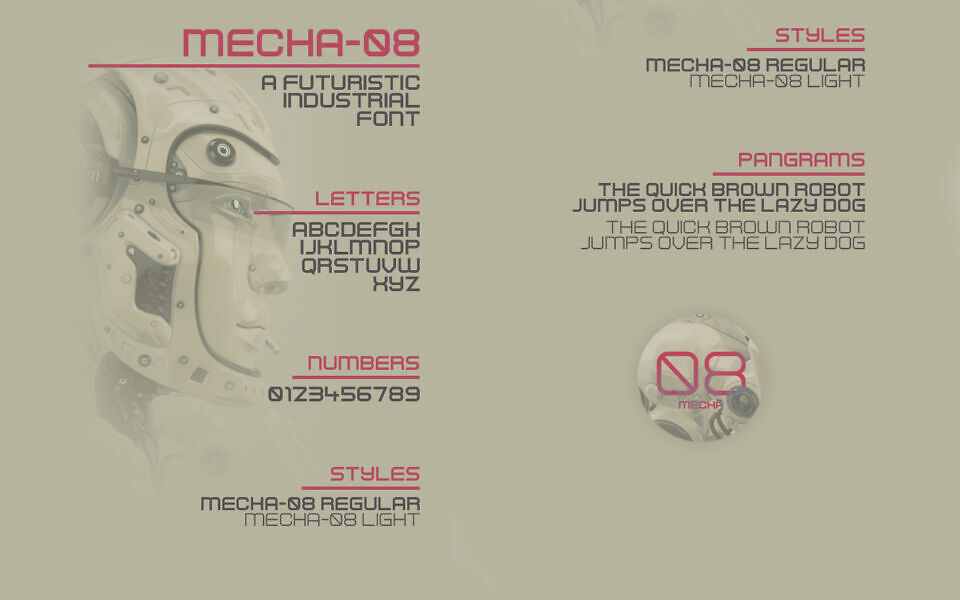
Mecha 08 Font
MECHA-08 is an all-caps futuristic, industrial font with a bold, geometric design. It features sharp angles and clean lines, evoking a sense of technology and strength.
Available in regular and light styles, it includes uppercase letters, numbers, and pangrams for versatile use. Ideal for projects requiring a modern, mechanical aesthetic.